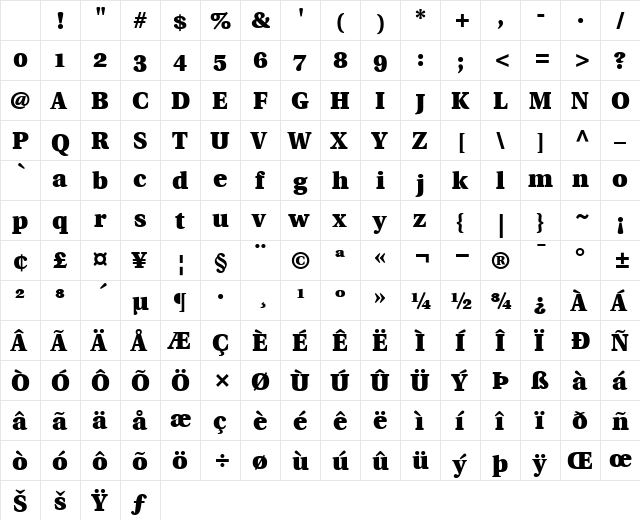
Complete UtopiawithOldstyleFigures-Black Black glyph index. Displaying only characters natively supported by UtopiawithOldstyleFigures-Black Black font.
UtopiawithOldstyleFigures-Black carries the refined structure of traditional serif typography, with bracketed terminals and considered proportions that communicate credibility and craft.
Pro Tip: Use UtopiawithOldstyleFigures-Black for editorial body copy and considered headline work. Pair with a neutral sans for UI elements or captions to create a classic hierarchy.